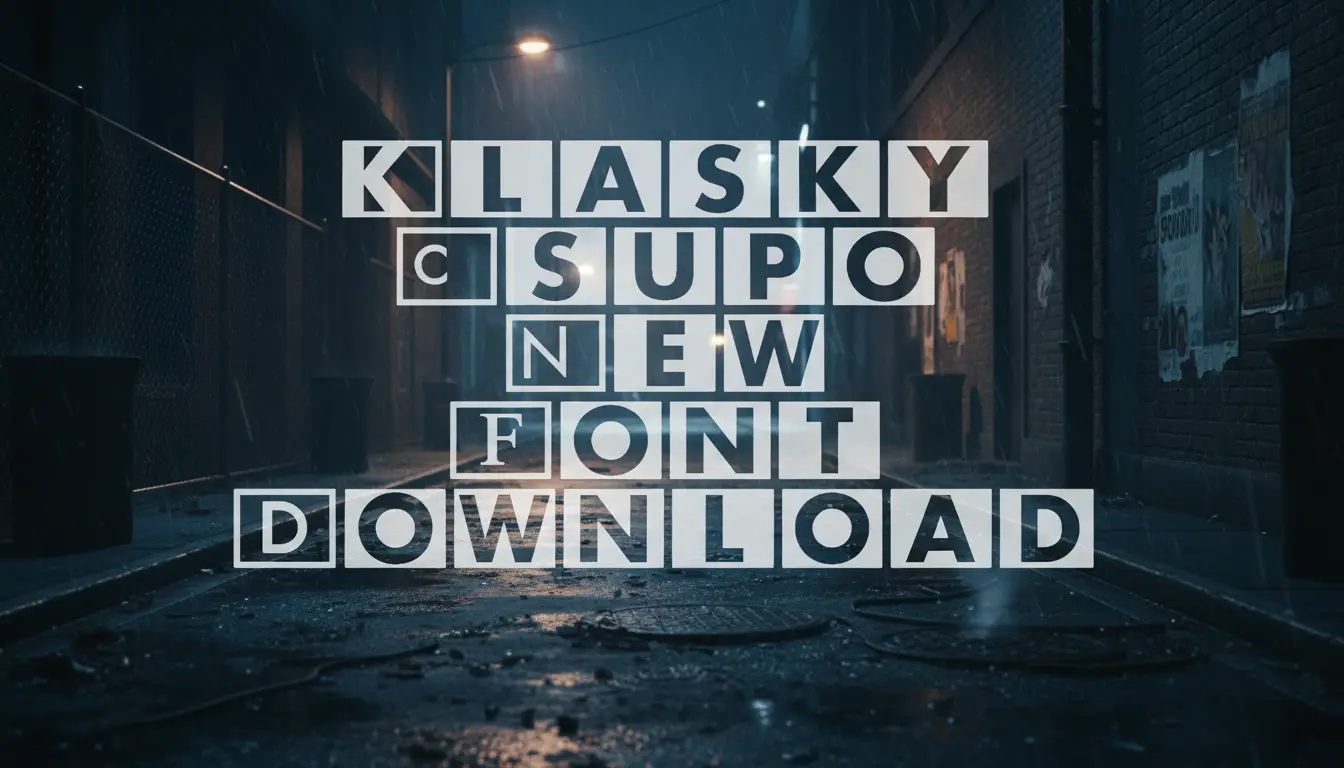
Klasky Csupo New Font
Type designers created Klasky Csupo New as a custom, novelty display typeface deeply rooted in internet fan-animation culture. Designed to replicate the distinctive, erratic, and blocky typography seen in Klasky Csupo’s studio logos and bumpers, the font captures the signature aesthetic behind classic 1990s and 2000s cartoons like Rugrats, Aaahh!!! Real Monsters, and The Wild Thornberrys.
Klasky Csupo New covers the full alphabet in upper and lowercase, plus all ten numbers, so you can set names, dates and prices without switching fonts. Common punctuation such as &, !, @ and # is included as well. It doesn't include accented letters such as é or ñ, which makes it an English-only font.
Klasky Csupo New is a natural fit for posters, logos and eye-catching headlines. Use it for one standout word or headline and let simpler fonts handle the rest.
No. Klasky Csupo New has no accented letters such as é, ñ or ü, so it's best for English text.